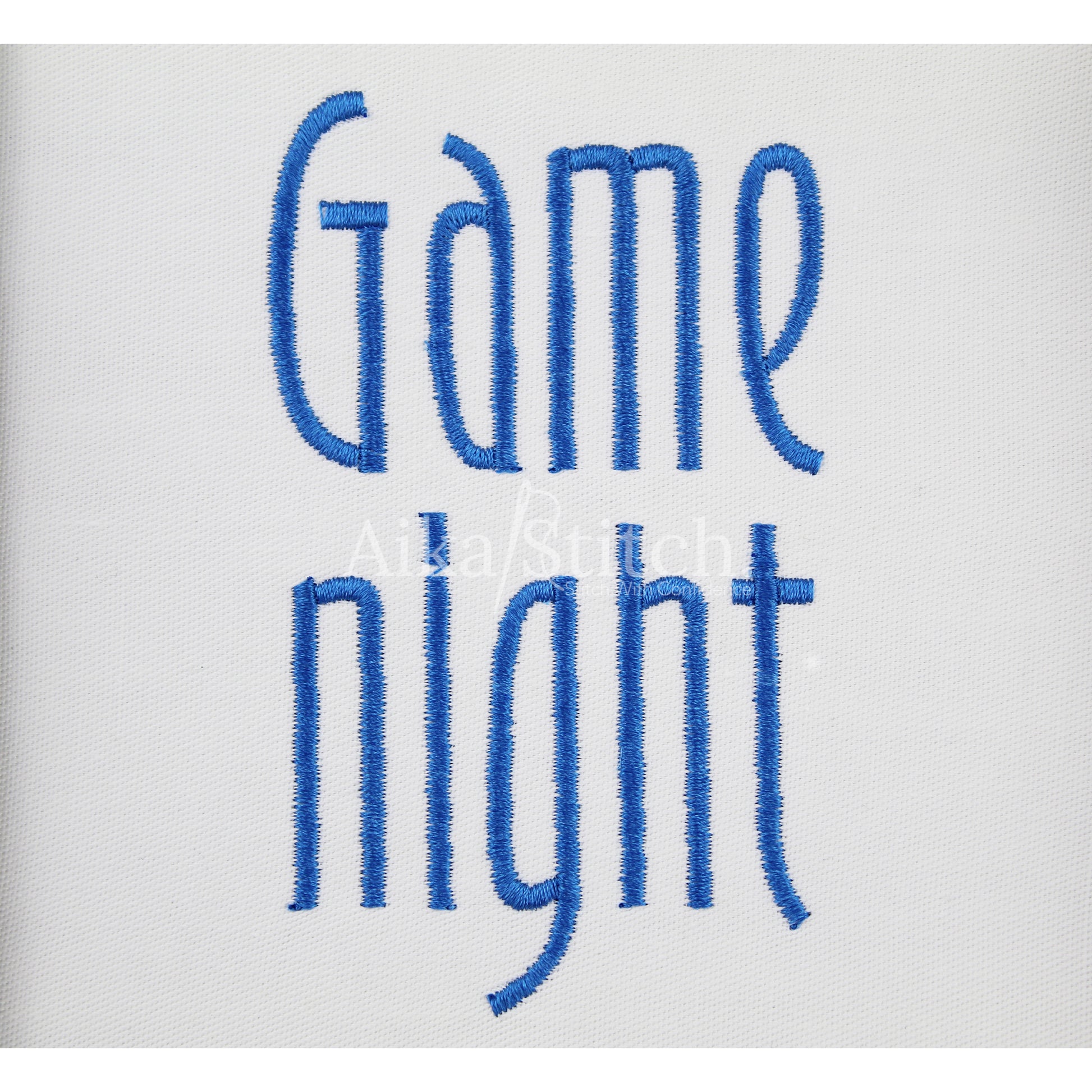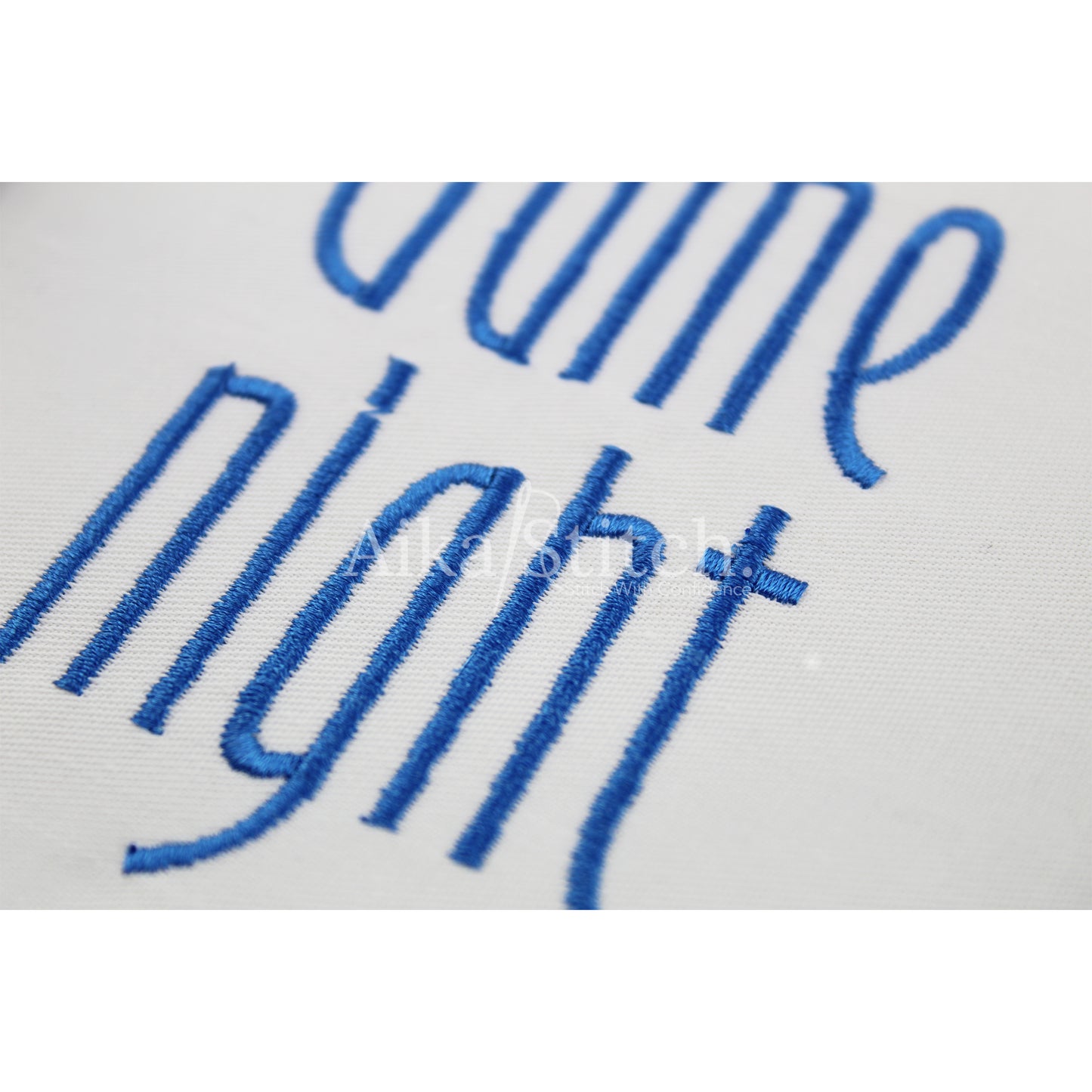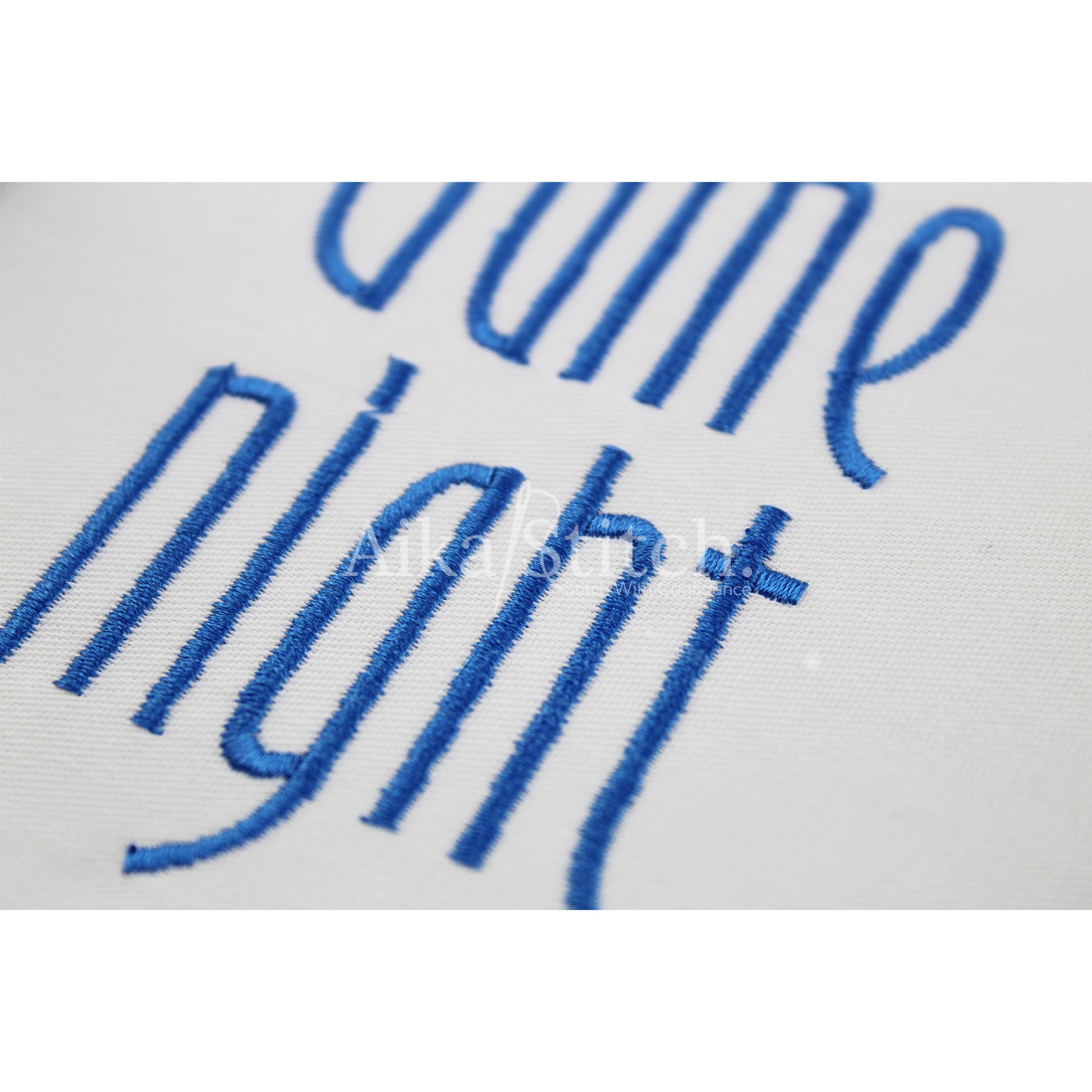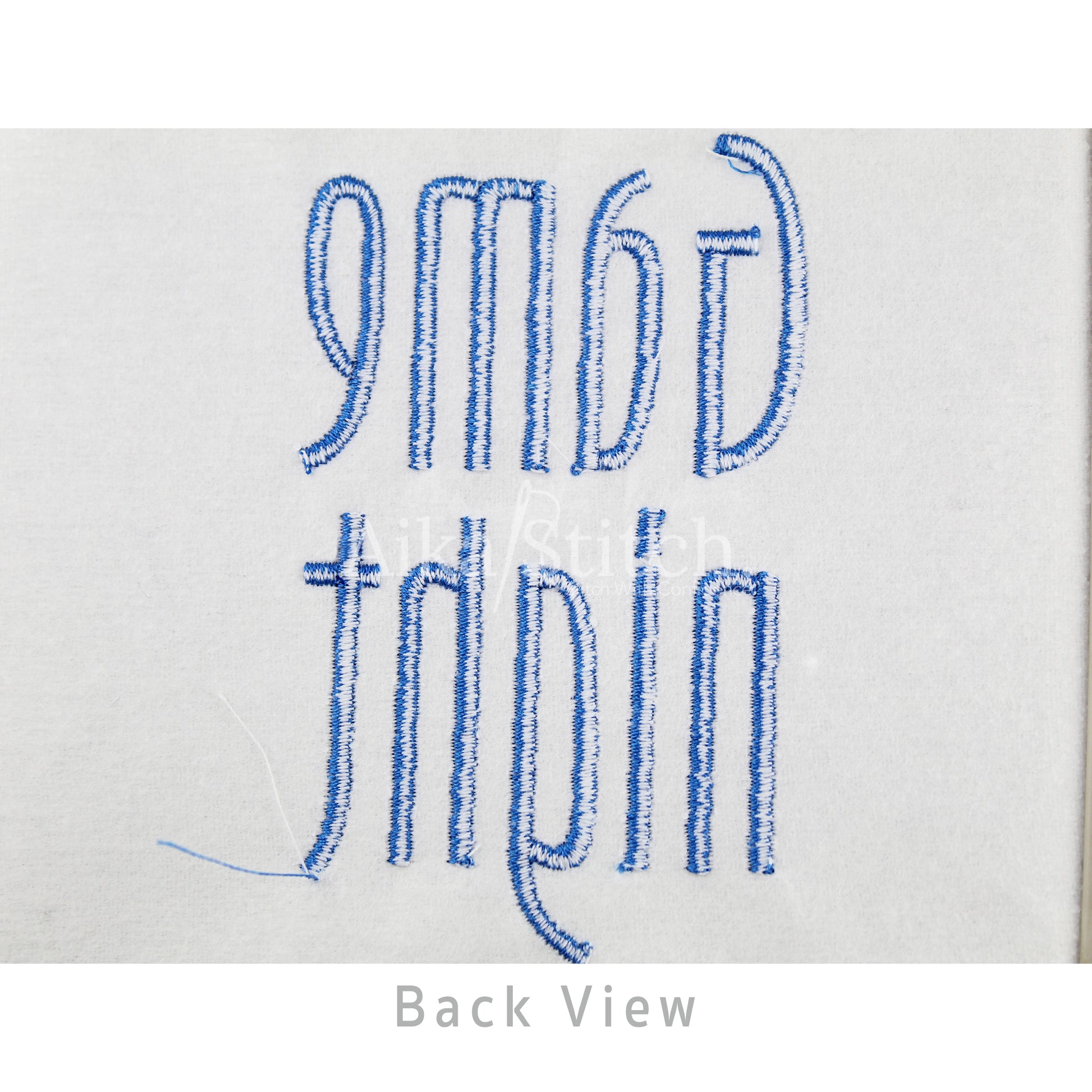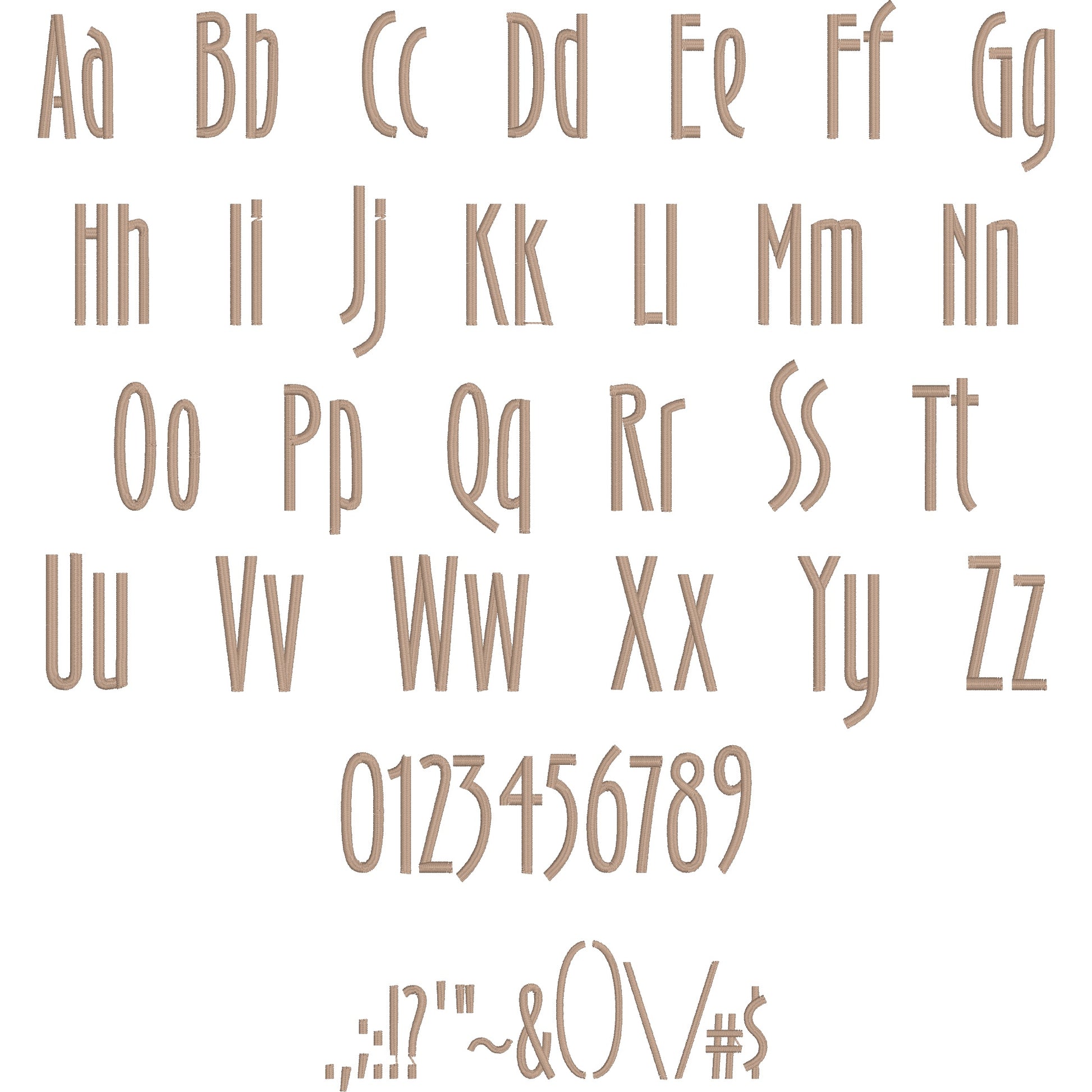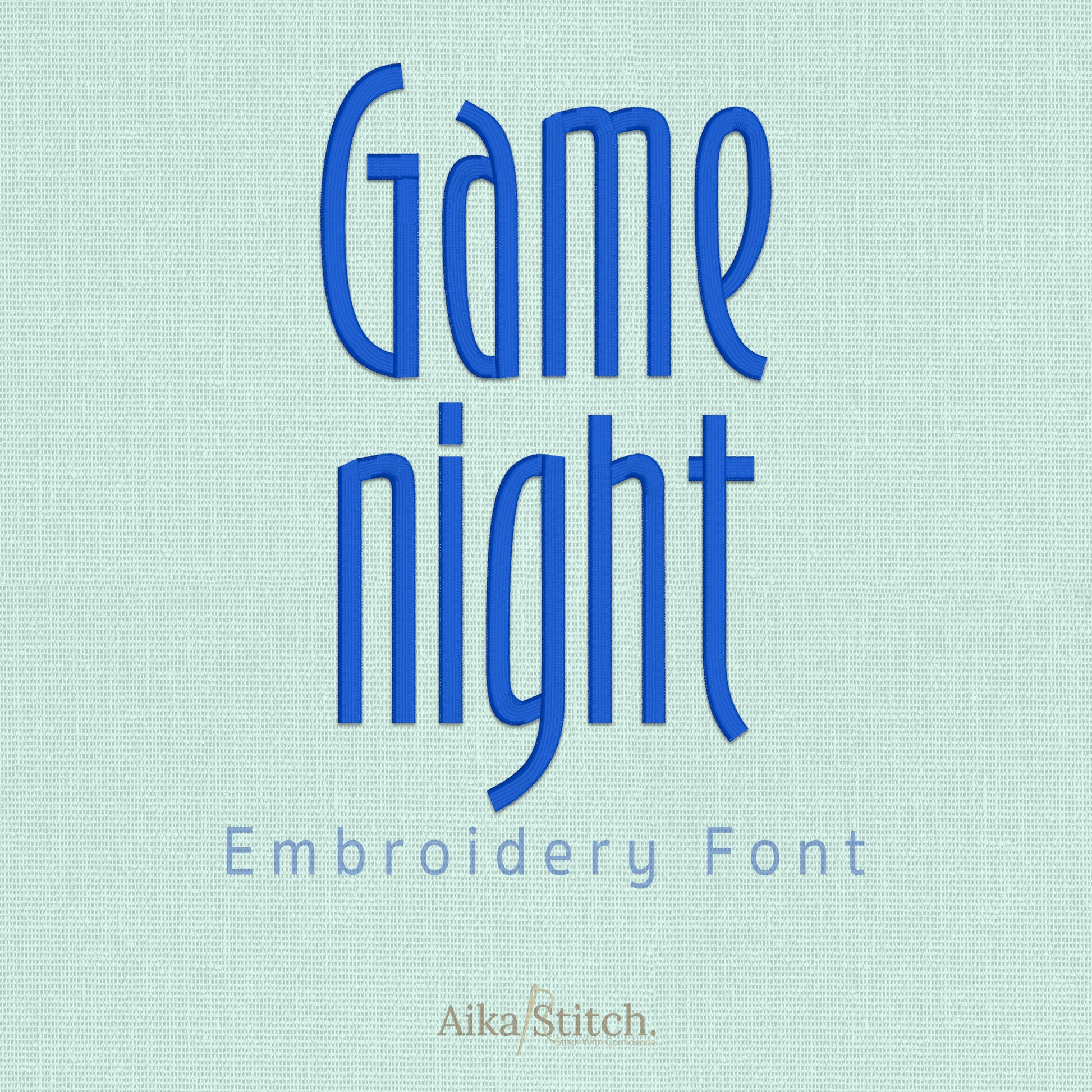
Game Night Tall Elegant Embroidery Font
Game Night is a Narrow Tall Elegant machine embroidery font featuring beautiful satin stitch lettering. Perfect for shirts, towels, hats, baby gifts, monograms, and small business embroidery projects.